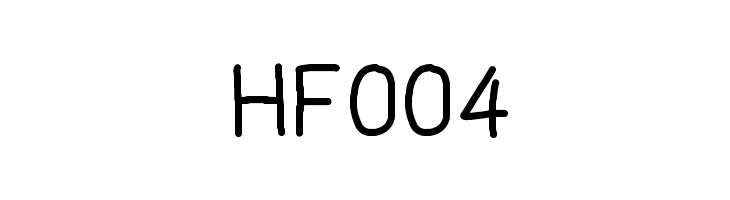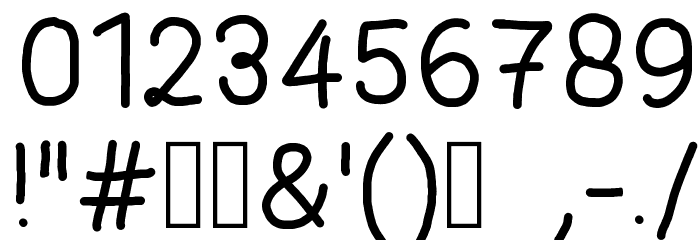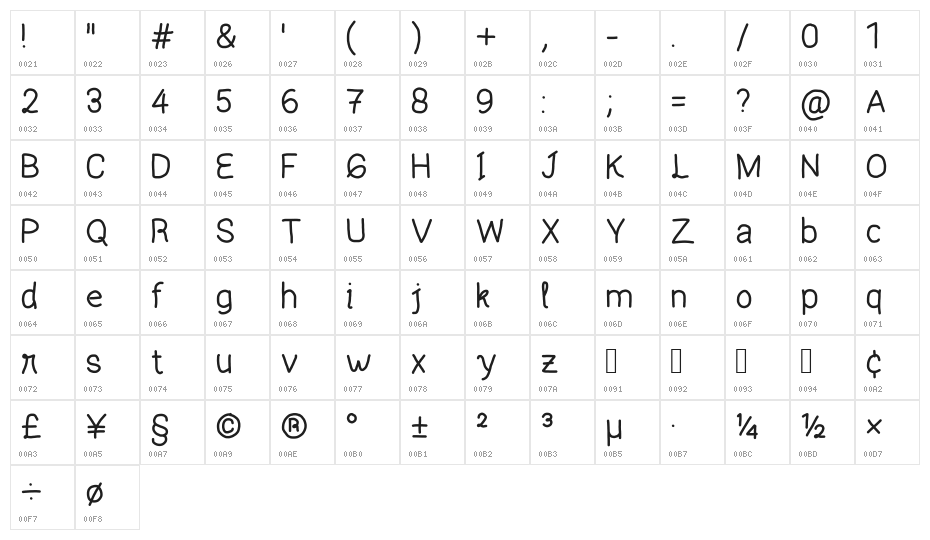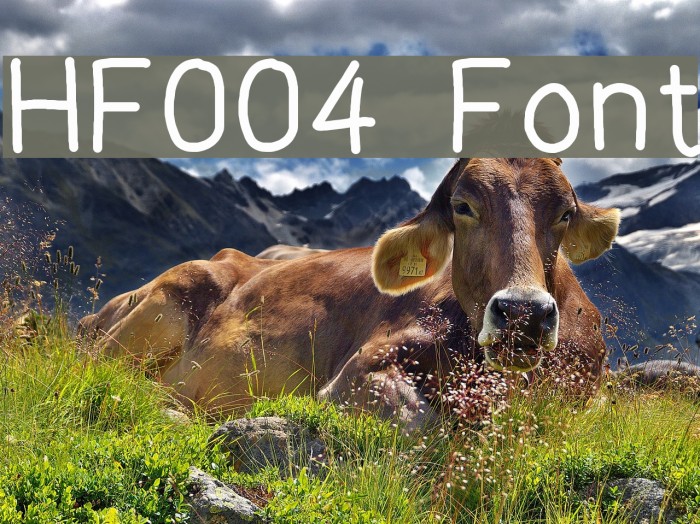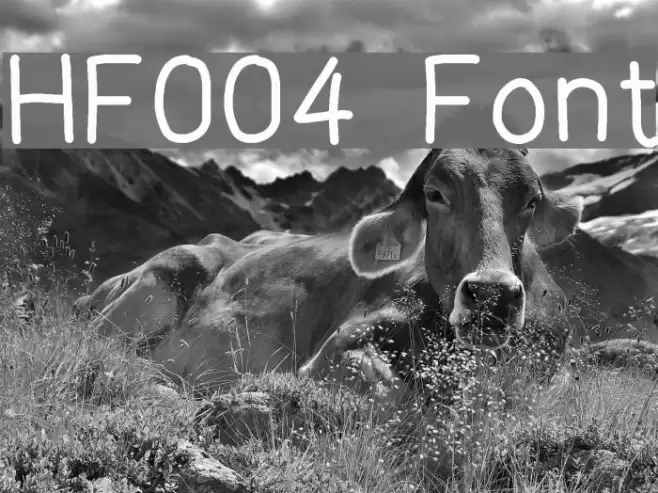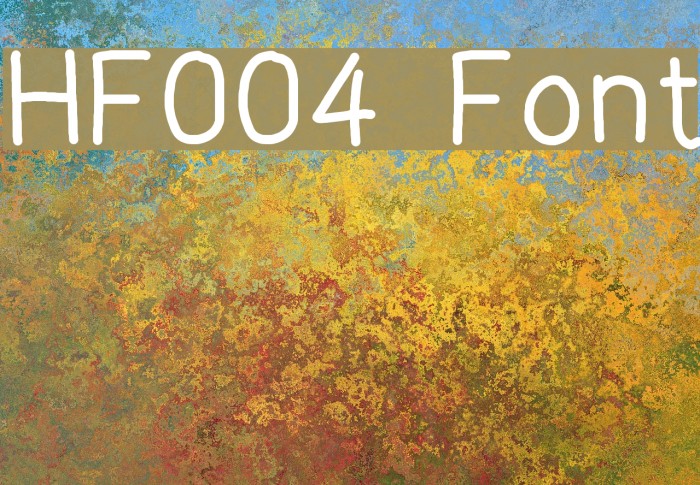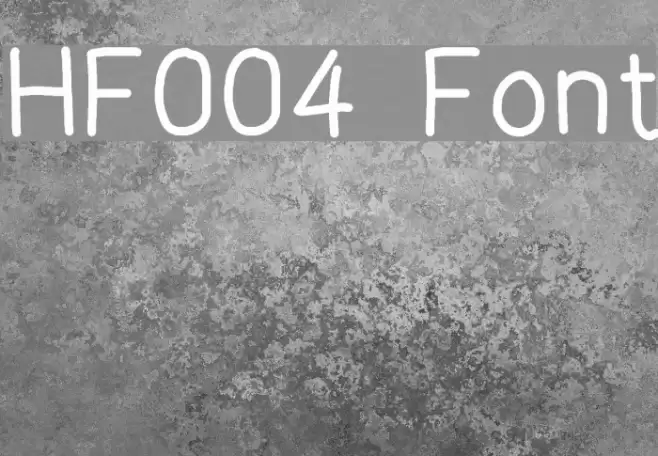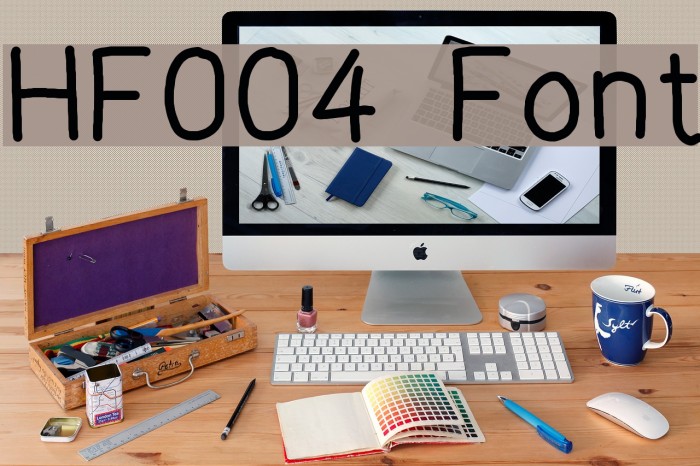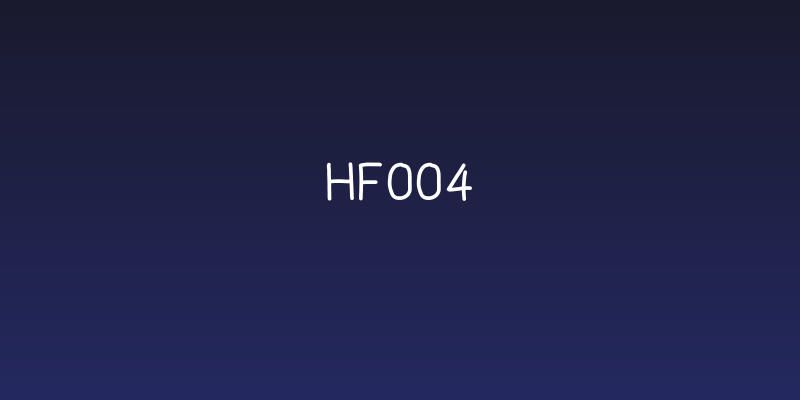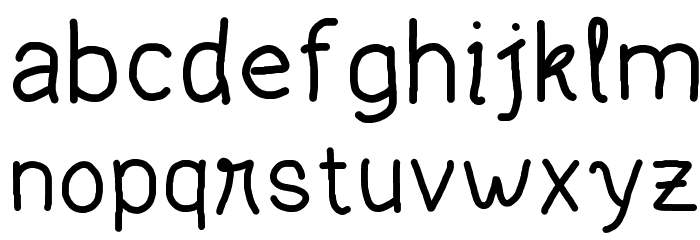
HF004 Font
HF004 Description
This font features a playful and casual handwritten style, characterized by its irregular and slightly wavy lines. The letters have a consistent stroke width, giving it a uniform appearance despite the informal design. The uppercase and lowercase letters maintain a cohesive look, with rounded edges and a friendly demeanor. The numerals and special characters follow the same whimsical style, making them easily recognizable and harmonious with the alphabet. This font exudes a sense of approachability and creativity, perfect for projects that require a personal touch.
| Proposed Projects | Ideal for children's books, greeting cards, personal blogs, and creative branding projects. |